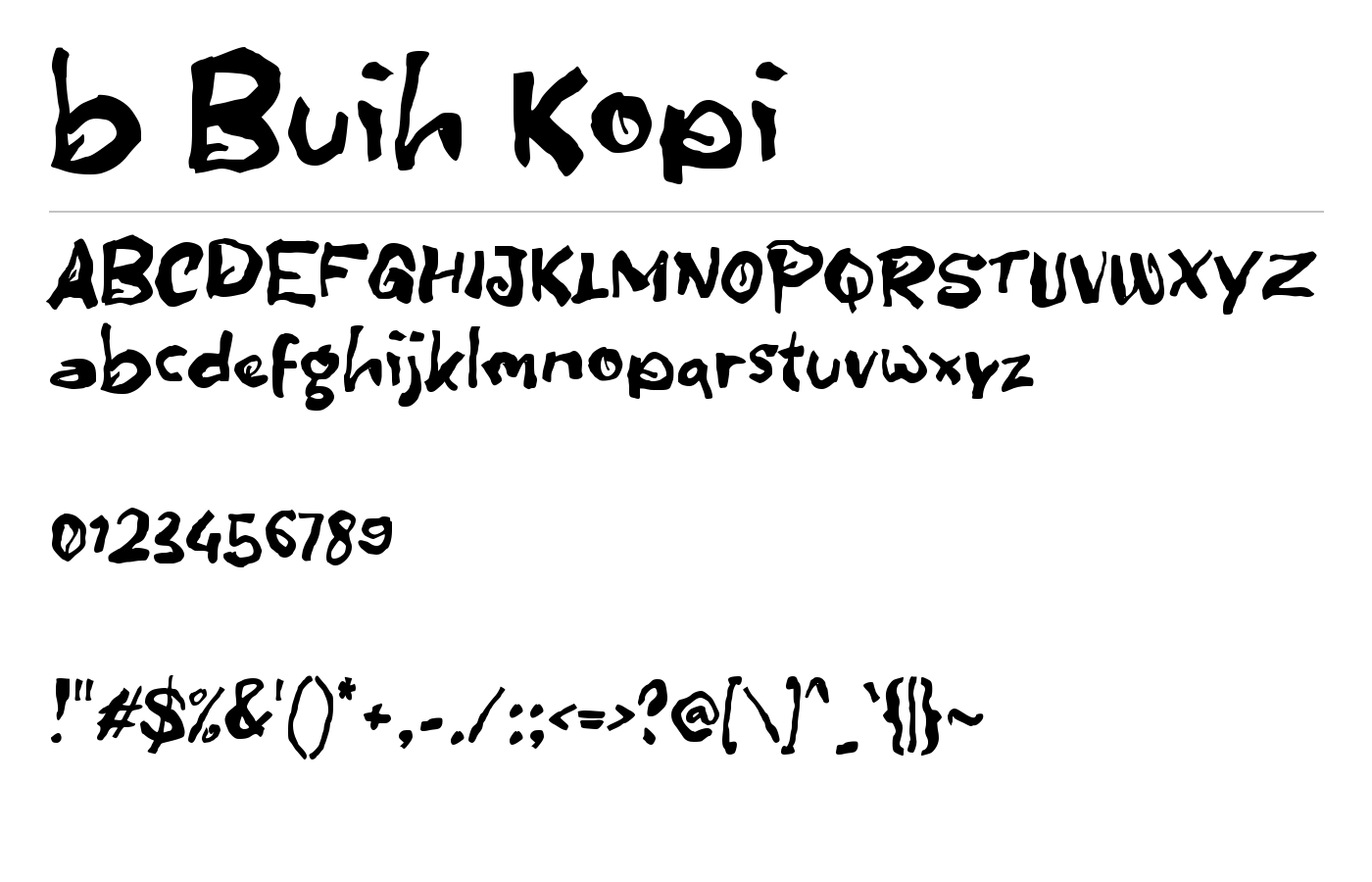
Buih Kopi is a bold, hand-drawn sans serif font with an organic, slightly rough texture that gives it a casual and expressive feel. Its irregular stroke widths and lively letterforms make it perfect for creative, informal designs that want to convey warmth and personality. This font works especially well for logos, posters, and branding that seek a distinctive, artistic touch.
b Buih Kopi Font
About b Buih Kopi Font
| Font family | b Buih Kopi Font |
| Designer | Wahyu EKa Prasetya |